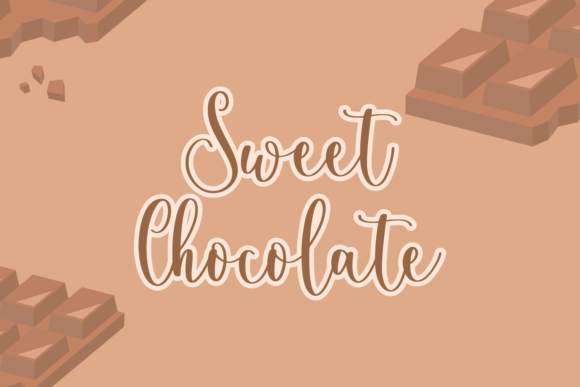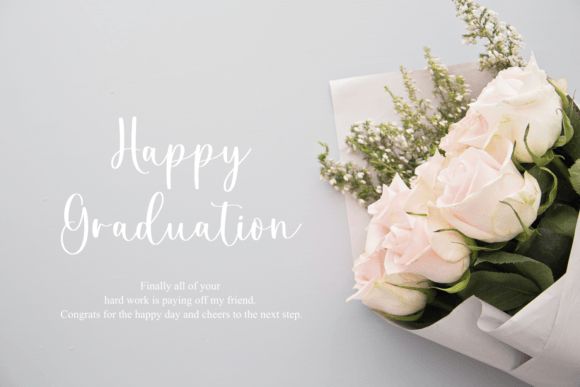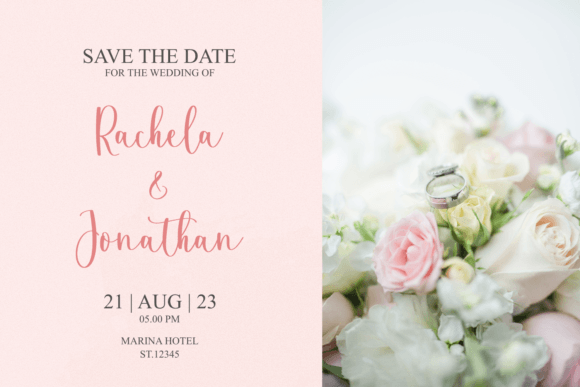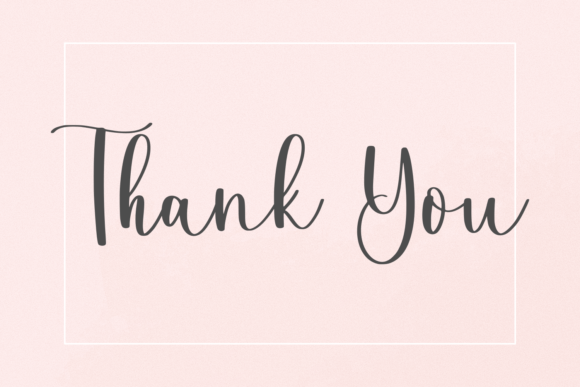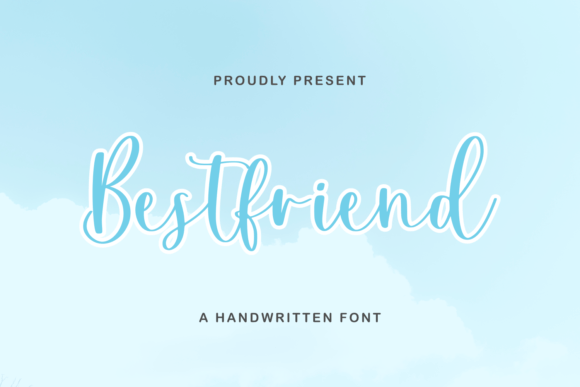
Introducing Bestfriend Font: The Sweetest Handwritten Font for Your Designs
Are you a designer or crafter looking for a unique and eye-catching font to elevate your designs? Look no further than Bestfriend Font, a sweet handwritten font that is sure to make your logos, labels, branding, invitations, websites, quotes, and more stand out from the crowd.
What Makes Bestfriend Font So Special?
Bestfriend Font is a beautifully crafted handwritten font that exudes warmth and personality. Its sweet and delicate style makes it perfect for a wide range of design projects, from feminine branding and packaging to wedding invitations and social media graphics.
One of the standout features of Bestfriend Font is its PUA (Private Use Area) encoding. This means that you can access all of the glyphs and swashes with ease, giving you complete creative control over your designs. Whether you want to add a touch of elegance or a dash of whimsy, Bestfriend Font has got you covered.
Uses for Bestfriend Font
The versatility of Bestfriend Font is one of its greatest strengths. Here are just a few ideas for how you can use this beautiful font in your designs:
- Logos and Branding: Create a memorable and impactful logo for your business or brand with Bestfriend Font. Its unique and eye-catching style is sure to help you stand out from the competition.
- Invitations and Stationery: Add a touch of elegance and sophistication to your wedding invitations, party invites, and other stationery with Bestfriend Font.
- Websites and Social Media: Use Bestfriend Font to create stunning website headers, social media graphics, and other online content that showcases your personality and style.
- Labels and Packaging: Create eye-catching labels and packaging for your products with Bestfriend Font. Its sweet and delicate style is perfect for food, beauty, and craft products.
- Quotes and Typography: Use Bestfriend Font to create inspiring and visually stunning quotes, posters, and typography art.
Why Choose Bestfriend Font?
With so many fonts to choose from, why should you choose Bestfriend Font? Here are just a few reasons:
- Unique and Eye-Catching: Bestfriend Font is a truly unique and eye-catching font that will help you stand out from the crowd.
- Highly Versatile: Bestfriend Font can be used for a wide range of design projects, from logos and branding to invitations and social media graphics.
- Easy to Use: Bestfriend Font is PUA encoded, making it easy to access all of the glyphs and swashes.
- PUA Encoded: With PUA encoding, you can access all of the glyphs and swashes with ease, giving you complete creative control over your designs.
Bestfriend Font is a sweet and versatile handwritten font that is perfect for designers and crafters looking to add a touch of personality to their designs. With its PUA encoding and wide range of uses, Bestfriend Font is an excellent choice for anyone looking to elevate their designs and make them stand out from the crowd.